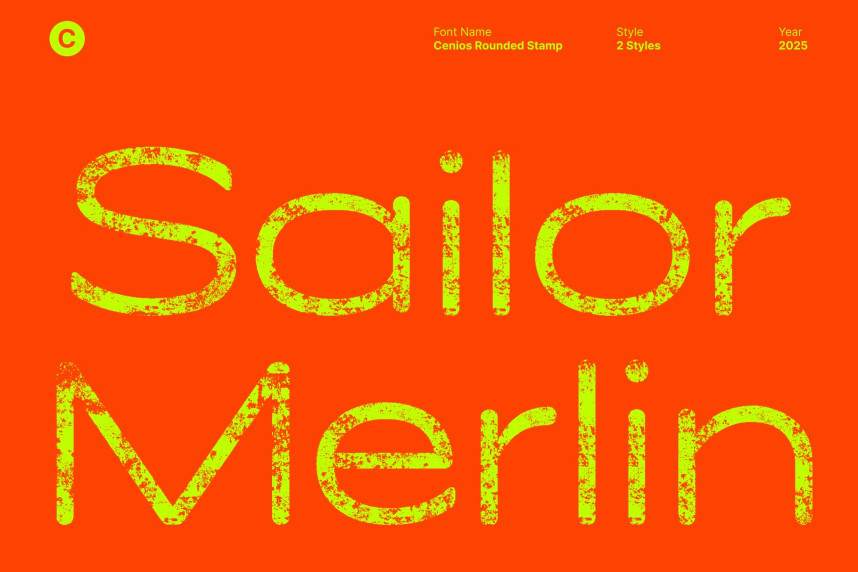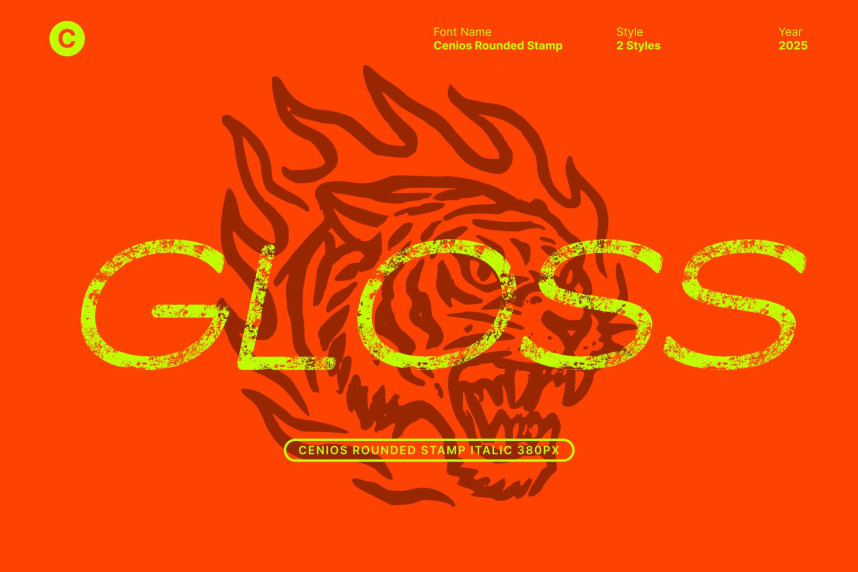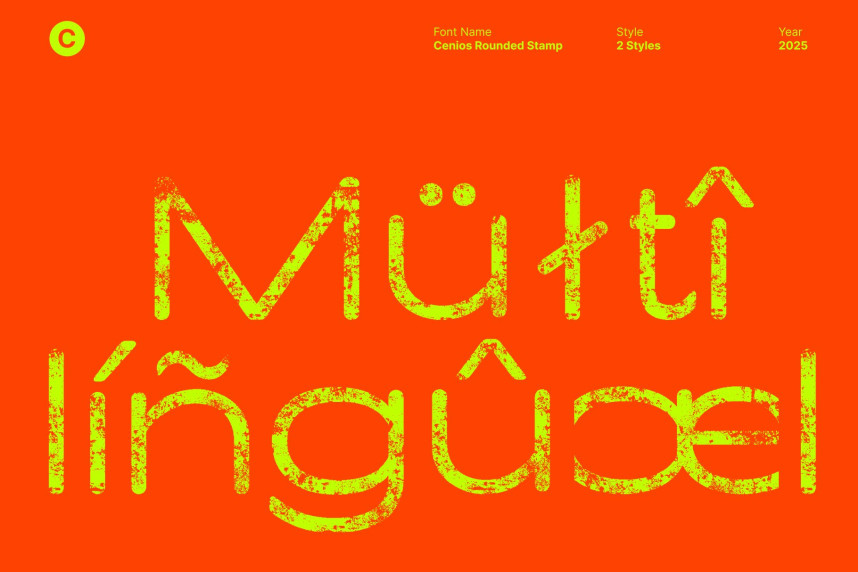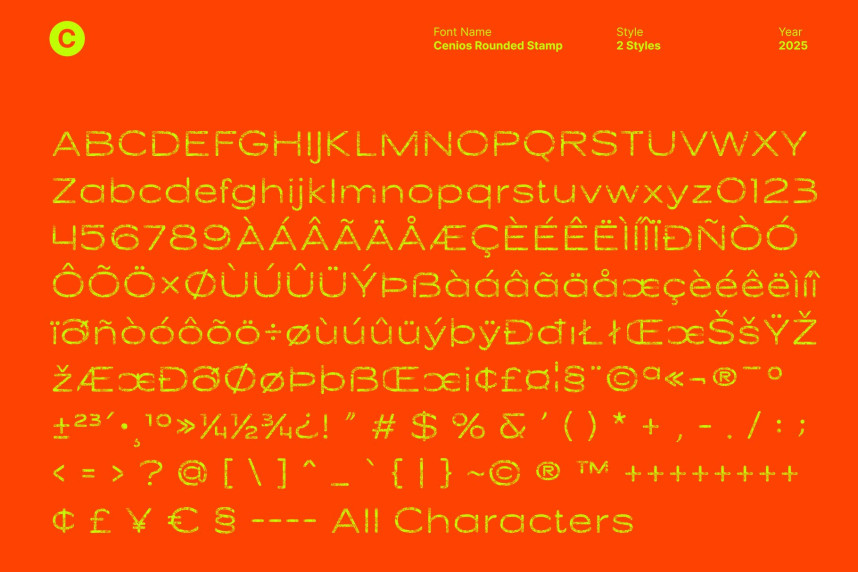
Cenios Rounded Stamp Font
Cenios Rounded Stamp Font – A Modern Geometric Sans with Vintage Texture A Professional Sans Serif with Geometric Precision. This is a modern sans serif font built on geometric construction and expanded letterforms. Its smooth curves and balanced proportions create a polished, contemporary appearance that radiates professionalism. The expanded width adds openness and confidence, making the font feel modern, and highly readable across various display applications.